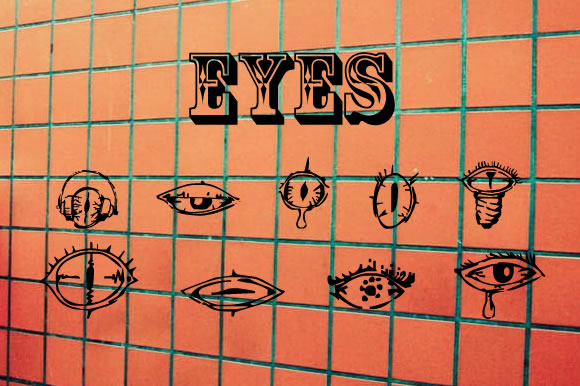
Eyes Font: A Spooky and Fun Dingbat Font for Designers and Crafters
Are you looking for a unique and creative font to add a personal touch to your designs? Look no further than Eyes Font, a dingbat font created by talented designer Gustavo Lucero. This font is perfect for kids, Halloween, and monster-themed designs, and is sure to bring a smile to your audience’s faces.
What is Eyes Font?
Eyes Font is a dingbat font that consists of 26 hand-drawn eyes, each one unique and full of character. The font is designed to be versatile and can be used for a variety of projects, from Halloween-themed party invitations to monster-themed crafts. The eyes are carefully crafted to be fun and playful, making them perfect for designs aimed at kids.
Features of Eyes Font
- 26 hand-drawn eyes: Each eye is carefully crafted to be unique and full of character, ensuring that your designs stand out from the crowd.
- Dingbat font: Eyes Font is a dingbat font, which means that it consists of symbols and icons rather than traditional letters and numbers.
- Perfect for kids and Halloween designs: The playful and spooky nature of the eyes makes them perfect for designs aimed at kids or for Halloween-themed projects.
- Hand-drawn: The eyes are hand-drawn, giving them a personal and unique touch that sets them apart from other fonts.
Uses for Eyes Font
Eyes Font is a versatile font that can be used for a wide range of projects, including:
- Halloween-themed designs: Use Eyes Font to create spooky and fun Halloween-themed party invitations, decorations, and crafts.
- Kids’ crafts and activities: The playful nature of the eyes makes them perfect for kids’ crafts and activities, such as making monster masks or creating spooky stories.
- Monster-themed designs: Use Eyes Font to create monster-themed designs, such as t-shirts, stickers, and posters.
- Party decorations and invitations: Use Eyes Font to create fun and playful party decorations and invitations for kids’ parties.
Tips for Using Eyes Font
Here are some tips for using Eyes Font in your designs:
- Experiment with different colors and combinations: Try out different colors and combinations of eyes to create unique and eye-catching designs.
- Use with other fonts: Combine Eyes Font with other fonts to create interesting and dynamic text combinations.
- Play with size and scale: Experiment with different sizes and scales to create visual interest and hierarchy in your designs.
Eyes Font is a unique and creative dingbat font that is perfect for designers and crafters looking to add a personal touch to their designs. With its 26 hand-drawn eyes, this font is sure to bring a smile to your audience’s faces. Whether you’re creating Halloween-themed designs, kids’ crafts, or monster-themed projects, Eyes Font is a versatile and fun font that is sure to inspire your creativity.